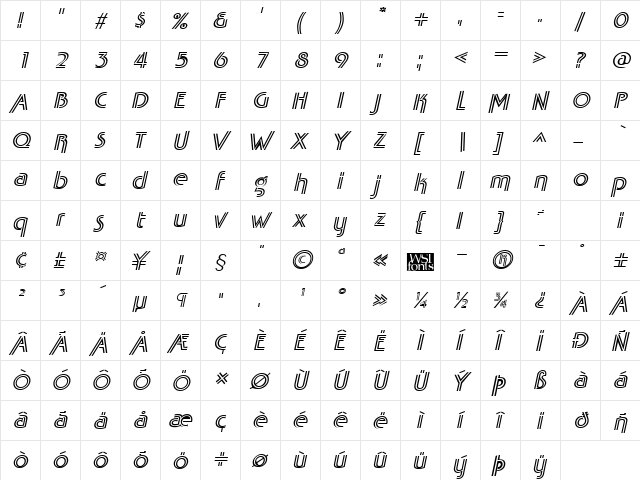
TabathaFresco Italic
Design Context for TabathaFresco Typeface
TabathaFresco offers clean, dependable letterforms without strong stylistic allegiance, making it a practical choice for designers who need flexibility. Its italic angle brings a sense of urgency and motion to the letterforms.